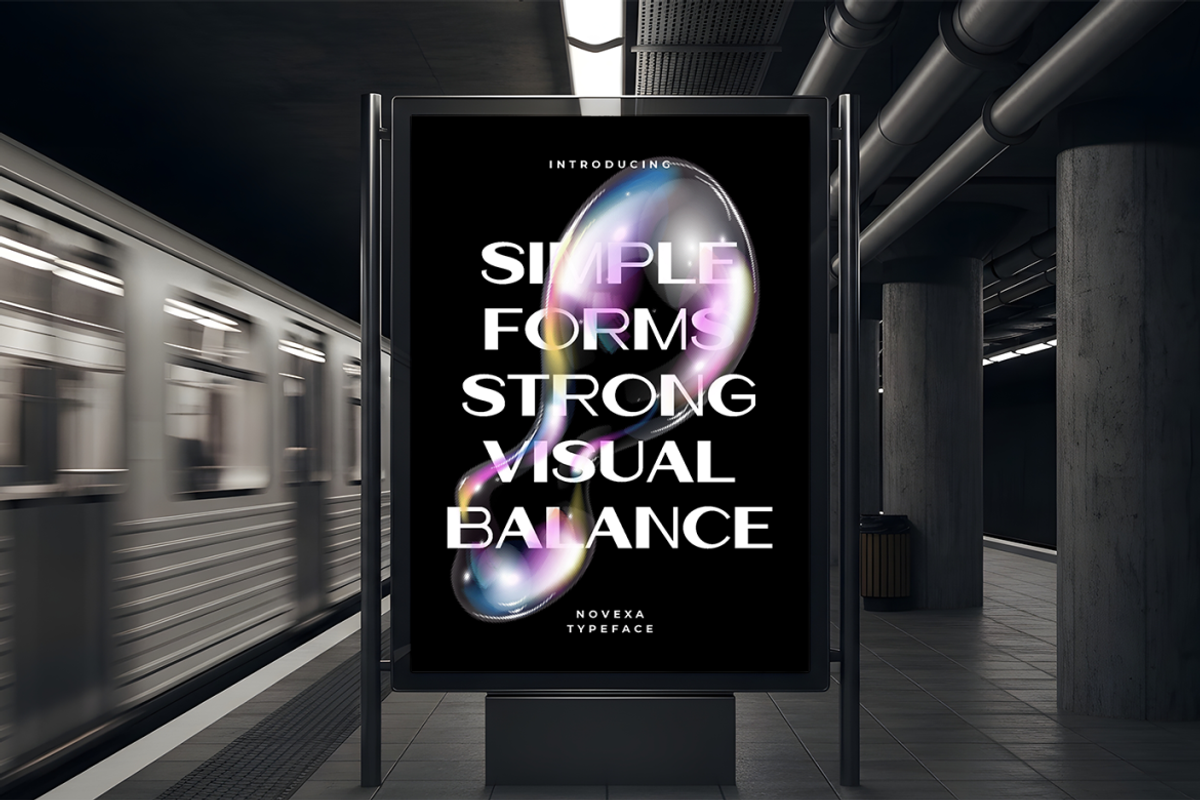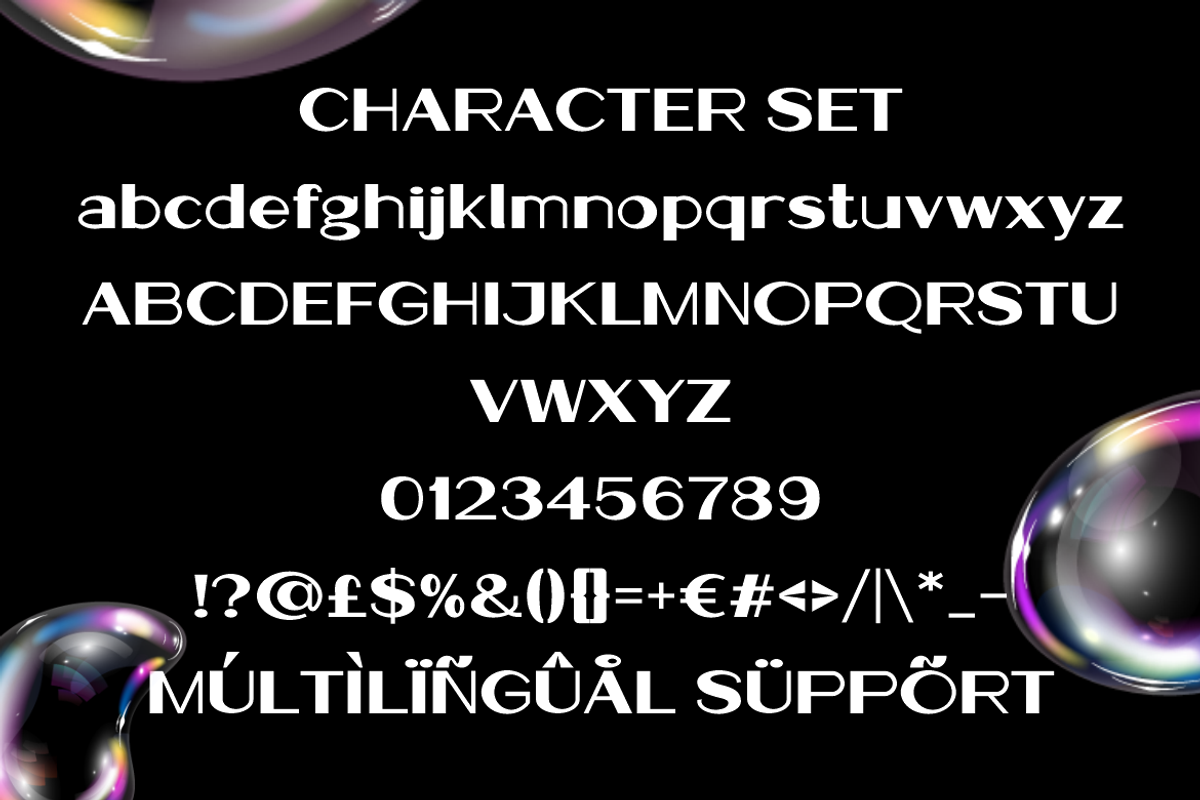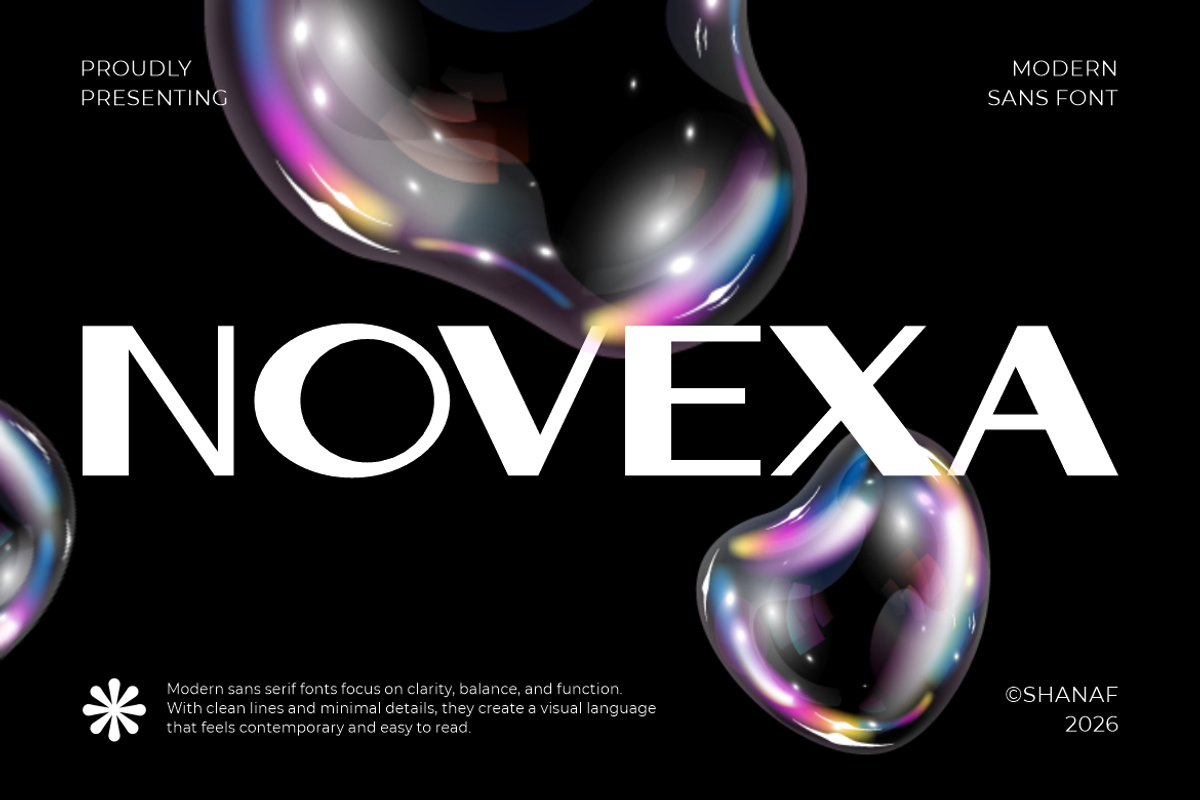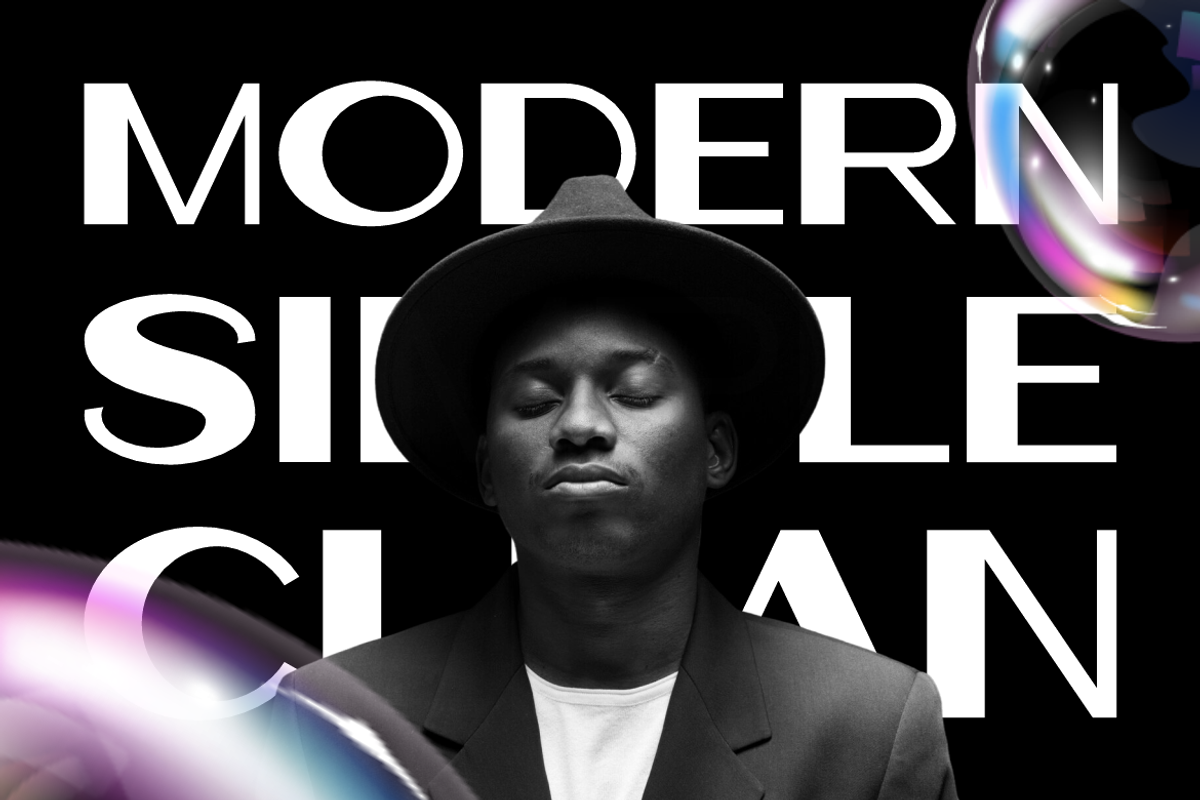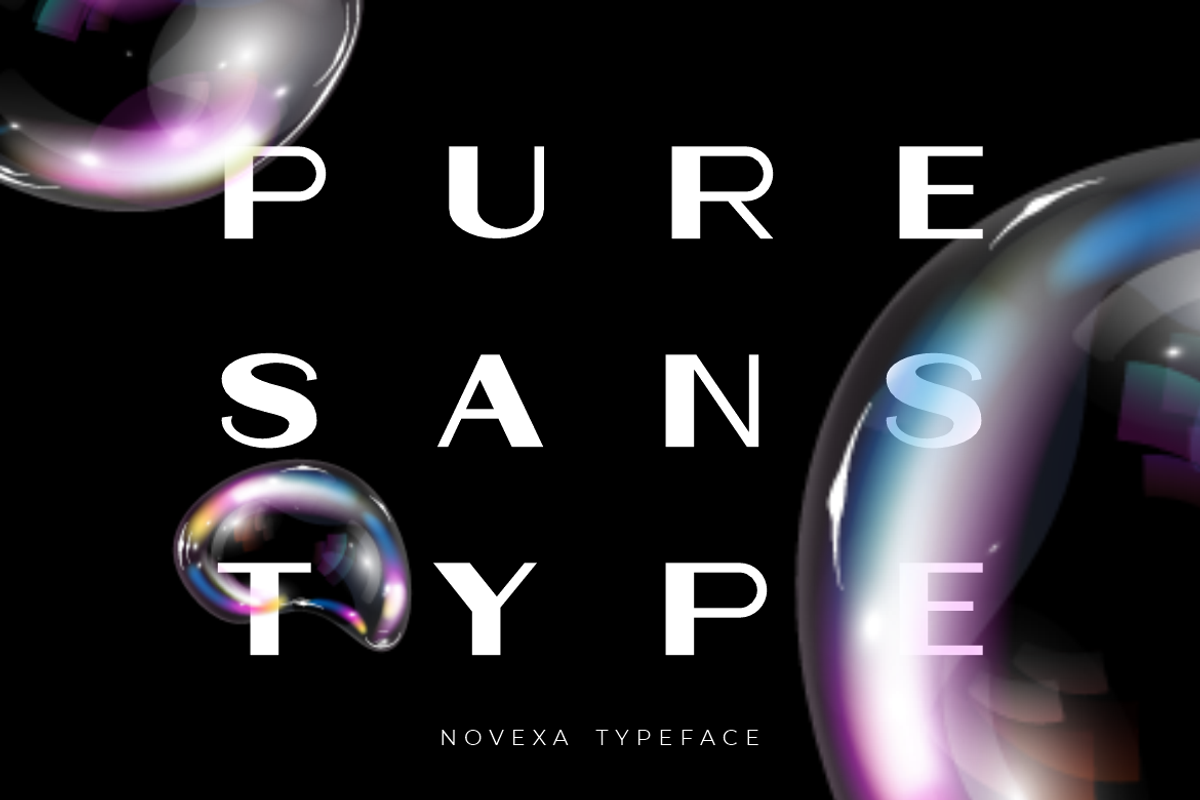
Novexa Modern Sans Font
Novexa Modern Sans Font brings a refined visual character through wide proportions, smooth curves, and balanced geometric construction. Its letters feel spacious and controlled, creating a confident identity without unnecessary decoration. Clean strokes support strong logo design, branding systems, photography studios, portrait businesses, and creative agencies. The structure also works for beauty branding, gallery identities, architecture projects, and technology businesses. Designers can apply it to advertising, headlines, posters, magazine titles, book covers, and business presentations. Its clear forms maintain readability while giving short names a polished visual presence.
The font works especially well for photography and portrait branding, but its reach extends much further. It suits studio logos, photographer portfolios, art galleries, beauty campaigns, cosmetic packaging, architecture studios, and interior businesses. Novexa Modern Sans Font also supports technology brands, digital products, corporate communication, and lifestyle businesses. Large letters create strong hierarchy for advertising posters, campaign headlines, product packaging, signage, and editorial covers. Wider spacing can create a calm luxury mood, while tighter settings produce stronger commercial impact. This flexibility helps businesses build consistent identities across print, digital, and promotional design.
Its simple construction makes the typeface practical for both expressive headlines and clean supporting information. Use it for fashion magazines, portrait portfolios, film titles, gallery posters, cosmetic labels, product branding, and social advertising. It also suits website headers, business cards, event graphics, stickers, invitations, greeting cards, and creative packaging. The character set includes uppercase, lowercase, numbers, punctuation, and multilingual support for wider projects. Smooth geometry gives each composition an organized and contemporary atmosphere. Novexa gives creative businesses a clear visual voice across branding, editorial, advertising, and product communication.